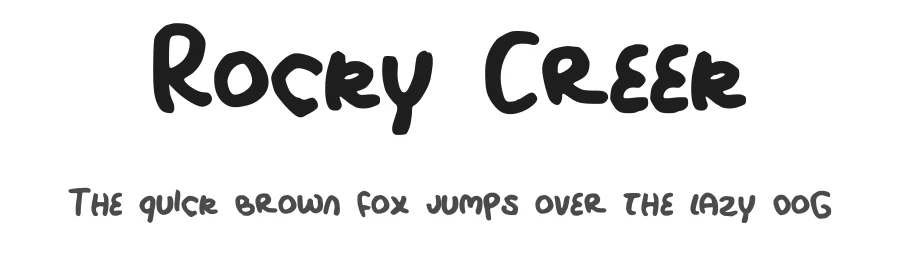
About Inexperted Font
Inexperted is a script & handwritten font designed by Valeria Espinal. It includes 143 glyphs, a medium weight, TTF (TrueType) format, and 121 languages. Inexperted is free to download; check the license details on this page before commercial use. Script & handwritten fonts like Inexperted work best for wedding invitations, greeting cards, signatures, and elegant branding.
Inexperted Font is a script font that shines as a display or heading face. Pair it with a clean sans-serif or serif font for body text β the contrast creates a clear hierarchy while the two styles stay balanced and easy to read.